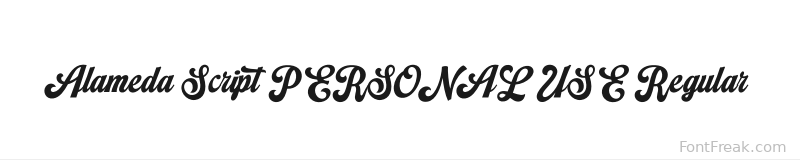
Alameda Script PERSONAL USE Regular
Alameda Script PERSONAL USE Regular by Mans Greback is a captivating script font that embodies elegance and charm. This font falls into the script category, characterized by its fluid, cursive style that mimics the graceful strokes of hand lettering. The stroke weight varies, providing a pleasing contrast that enhances its visual appeal. The letters flow seamlessly into one another, creating a cohesive and inviting look. The spacing is thoughtfully designed, allowing for readability while maintaining an artistic flair. Decorative elements, such as swashes and loops, add to the font's whimsical nature, making it a perfect choice for creative projects.
This versatile font is ideal for a variety of use cases. It shines in wedding invitations, where its romantic curves can set the tone for a special day. Alameda Script can also elevate movie posters, giving a dramatic flair that captures attention. Restaurant menus benefit from its stylish appearance, making dishes sound even more enticing. Additionally, it is well-suited for branding materials, such as logos and packaging, where a personal touch can make a significant impact. Graphic designers, small business owners, and content creators will find this font particularly appealing, as it adds a unique and sophisticated element to their work.
What sets the Alameda Script PERSONAL USE Regular font apart is its blend of elegance and versatility. It stands out in a crowded field of fonts, offering a distinctive option that is both aesthetically pleasing and functional. With its free download availability, this font provides an excellent opportunity for creators to enhance their projects with a touch of artistry. Whether you’re crafting a heartfelt message or designing an eye-catching layout, Alameda Script PERSONAL USE Regular is a choice that will leave a lasting impression.